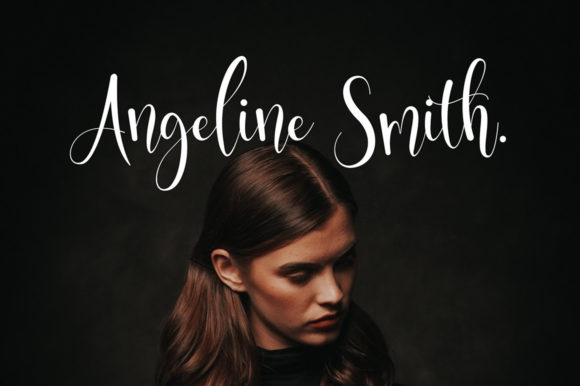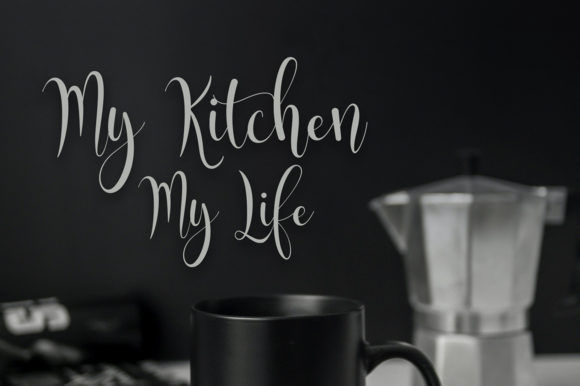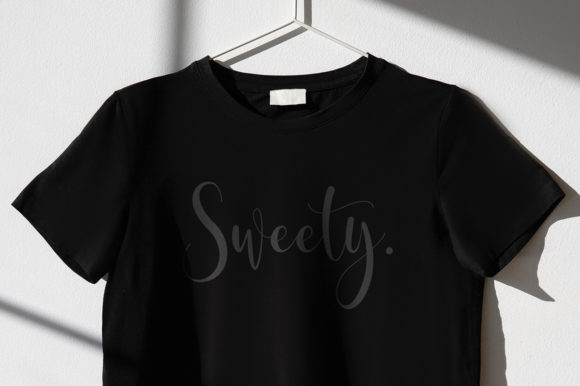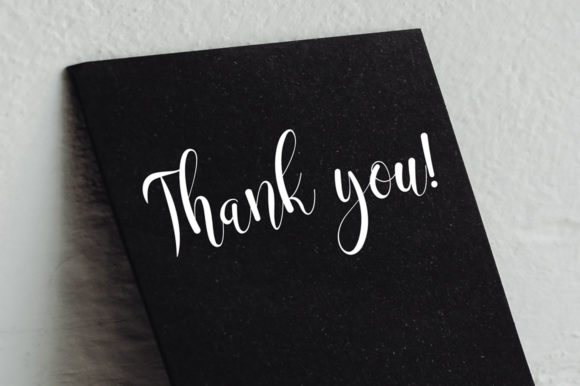
Introducing Analisa Font: The Modern Calligraphy Font for Creative Projects
Are you a designer or crafter looking for a font that can add a touch of elegance and sophistication to your projects? Look no further than Analisa Font, a modern calligraphy font with a sleek and cute style that’s perfect for a variety of creative endeavors. In this article, we’ll take a closer look at Analisa Font and explore its features, benefits, and uses.
What is Analisa Font?
Analisa Font is a modern calligraphy font that’s designed to bring a touch of pampering to your projects. Its sleek and cute style makes it perfect for a range of applications, from character logos and t-shirts to product packaging, invitation cards, and greeting cards. With Analisa Font, you can add a level of sophistication and elegance to your designs that will set them apart from the rest.
Key Features of Analisa Font
So, what makes Analisa Font so special? Here are just a few of its key features:
- Modern Calligraphy Style: Analisa Font features a modern calligraphy style that’s both sleek and elegant. Its fluid lines and curves make it perfect for adding a touch of sophistication to your designs.
- Cute and Playful: Despite its elegant style, Analisa Font is also surprisingly cute and playful. This makes it perfect for projects that require a touch of whimsy and personality.
- Highly Versatile: Analisa Font is incredibly versatile, making it perfect for a wide range of projects and applications. Whether you’re designing a logo, creating a greeting card, or developing a brand identity, Analisa Font is a great choice.
Uses for Analisa Font
So, what can you use Analisa Font for? The possibilities are endless, but here are a few ideas to get you started:
- Character Logos: Analisa Font is perfect for creating character logos that are both cute and elegant. Its modern calligraphy style makes it perfect for branding and identity projects.
- T-Shirts and Apparel: Add a touch of sophistication to your t-shirt and apparel designs with Analisa Font. Its cute and playful style makes it perfect for creating fun and stylish designs.
- Product Packaging: Analisa Font is also great for product packaging, adding a touch of elegance and sophistication to your packaging designs.
- Invitation Cards and Greeting Cards: Create beautiful and elegant invitation cards and greeting cards with Analisa Font. Its modern calligraphy style makes it perfect for special occasions.
- Instagram Quotes: Add a touch of style to your Instagram quotes with Analisa Font. Its cute and playful style makes it perfect for creating visually appealing quotes.
Why Choose Analisa Font?
So, why should you choose Analisa Font for your projects? Here are just a few reasons:
- Unique and Elegant Style: Analisa Font features a unique and elegant style that’s sure to set your designs apart from the rest.
- Highly Versatile: Analisa Font is incredibly versatile, making it perfect for a wide range of projects and applications.
- Easy to Use: Analisa Font is easy to use and can be easily integrated into your designs.
In conclusion, Analisa Font is a modern calligraphy font that’s perfect for designers and crafters looking to add a touch of elegance and sophistication to their projects. Its sleek and cute style makes it perfect for a range of applications, from character logos and t-shirts to product packaging, invitation cards, and greeting cards. With its unique and elegant style, versatility, and ease of use, Analisa Font is a great choice for any project. So why not give it a try and see the results for yourself?
Whether you’re a seasoned designer or a crafter just starting out, Analisa Font is a great addition to your font library. Its modern calligraphy style and cute and playful personality make it perfect for a wide range of creative projects. So go ahead, add Analisa Font to your projects, and see the difference it can make.